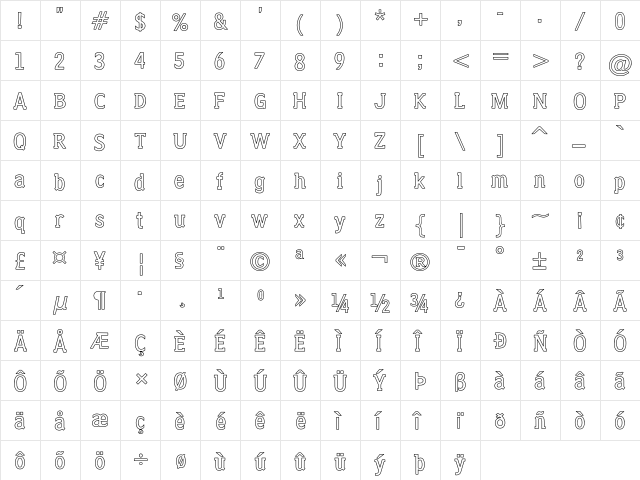
Clique-SerifOutline Bold
Design Context for Clique-SerifOutline Typeface
Clique-SerifOutline brings ornamental detail and strong personality to headlines and identities, where visual impact matters more than quiet functionality. The heavy weight commands attention and anchors typographic hierarchies.
Font Pairing: Pair with a clean neutral sans-serif for body copy to let Clique-SerifOutline's character lead without overwhelming the composition.
Pro Tip: Treat Clique-SerifOutline as the centrepiece of your typographic hierarchy. One strong heading set in a decorative face can carry an entire layout.